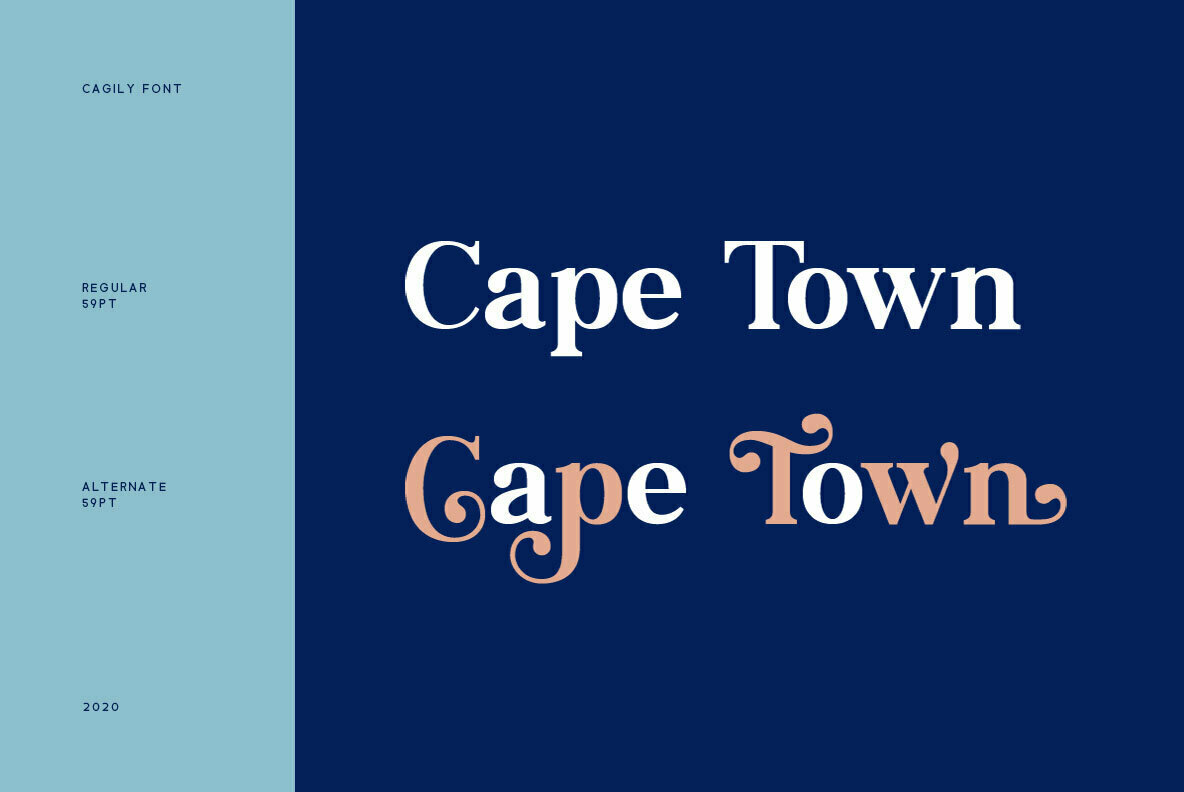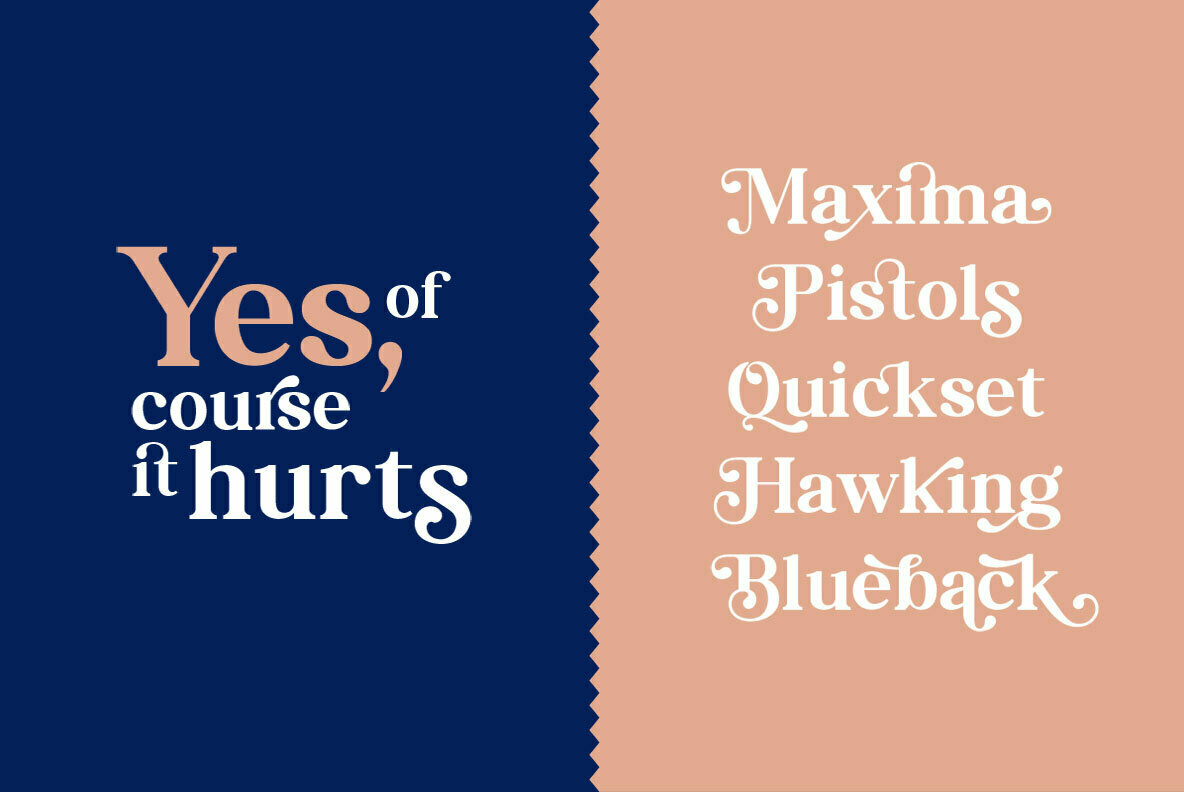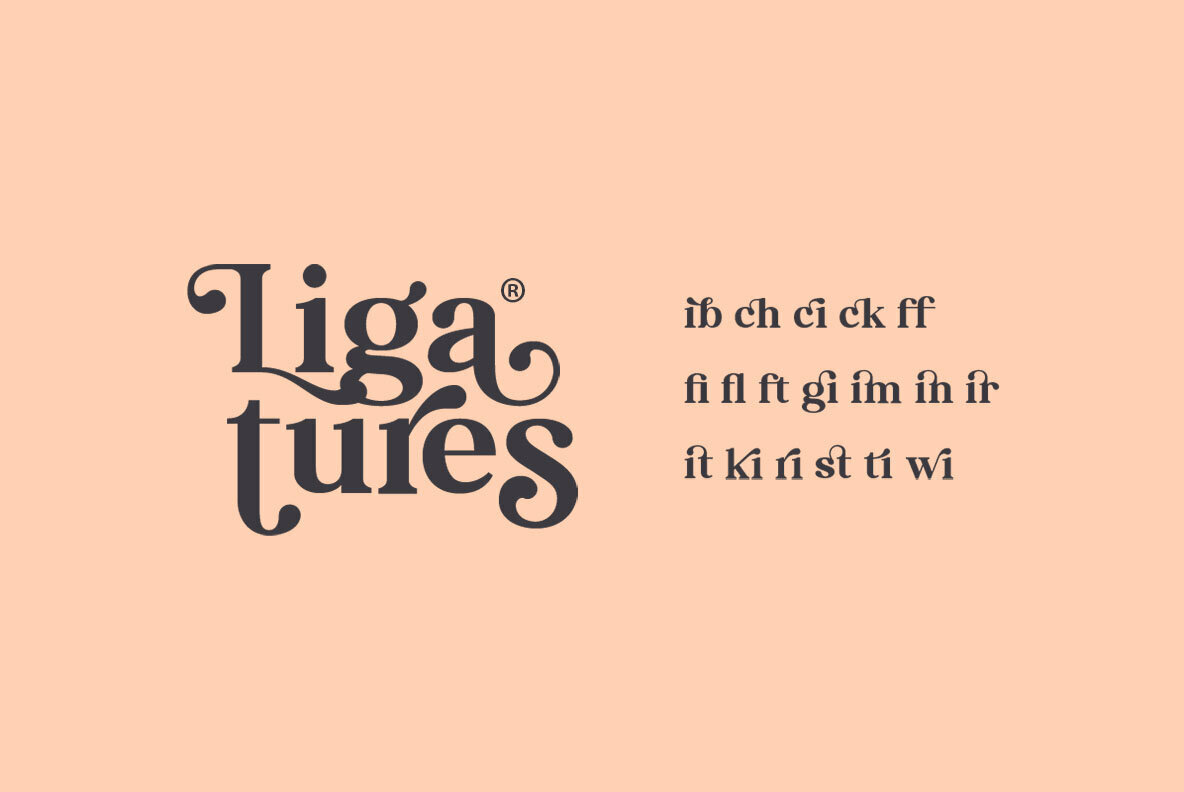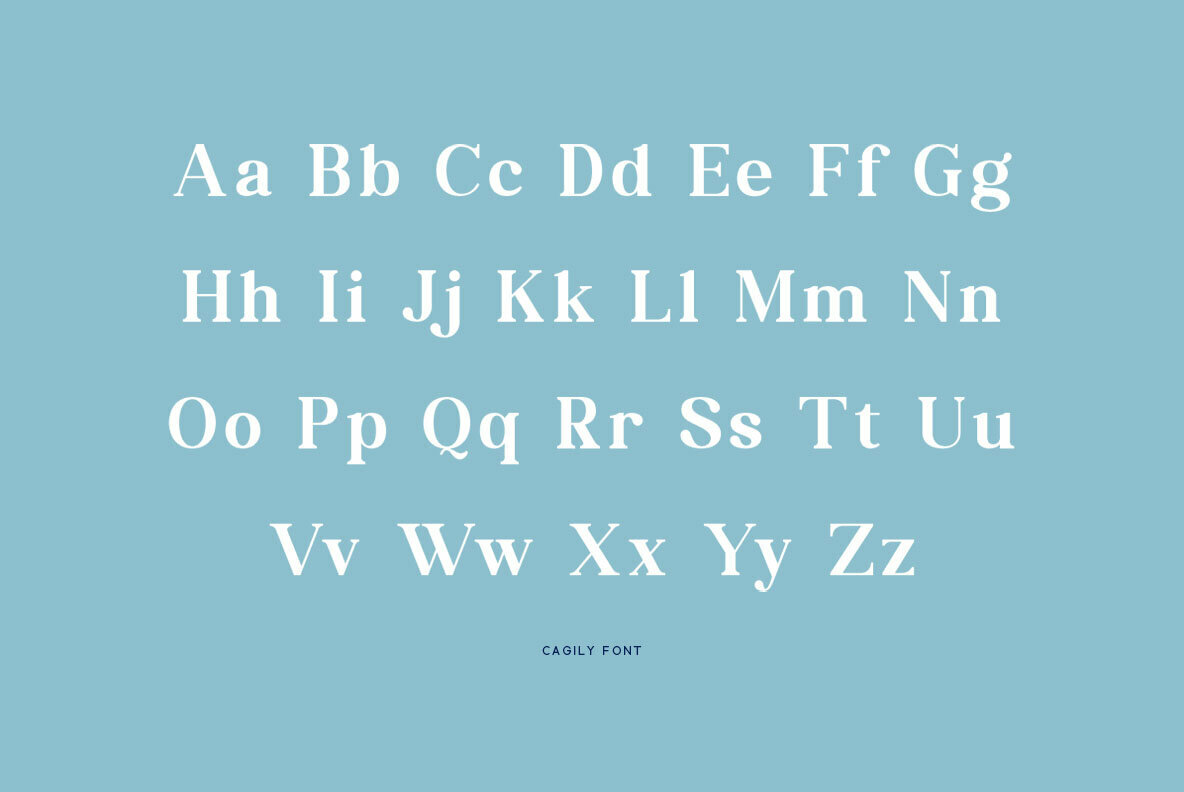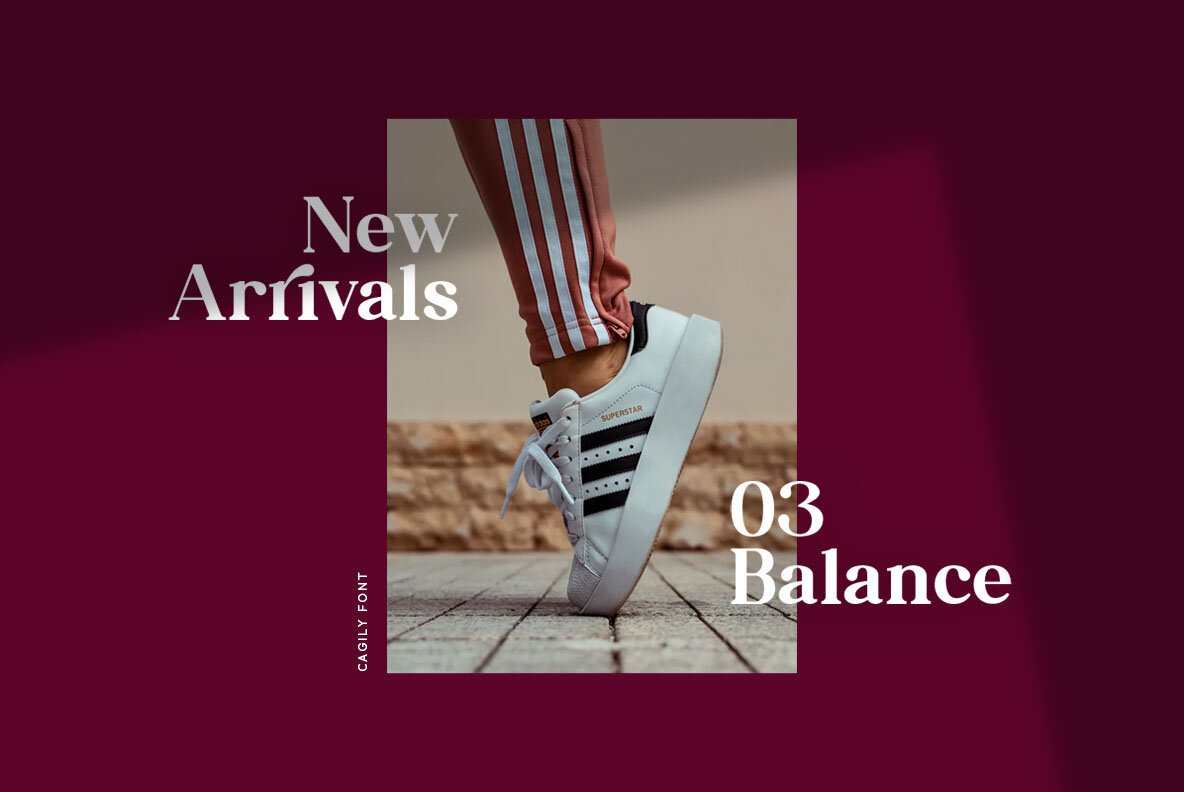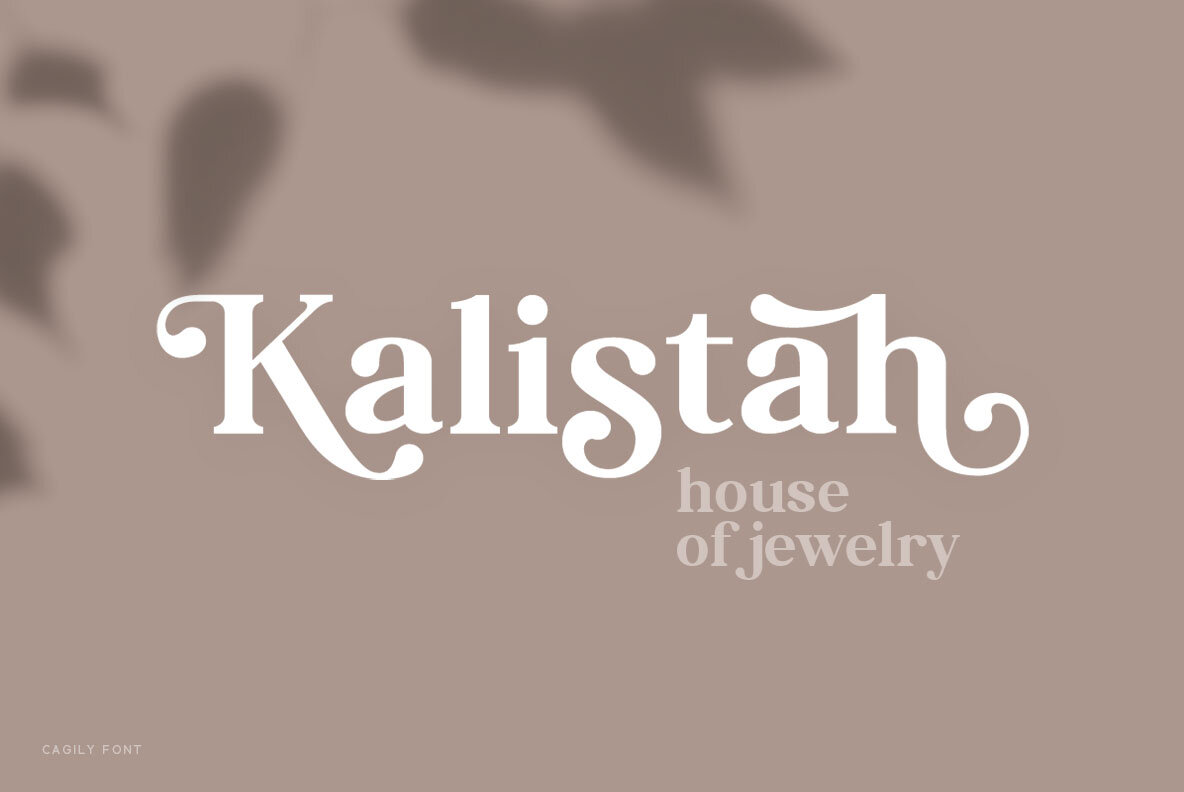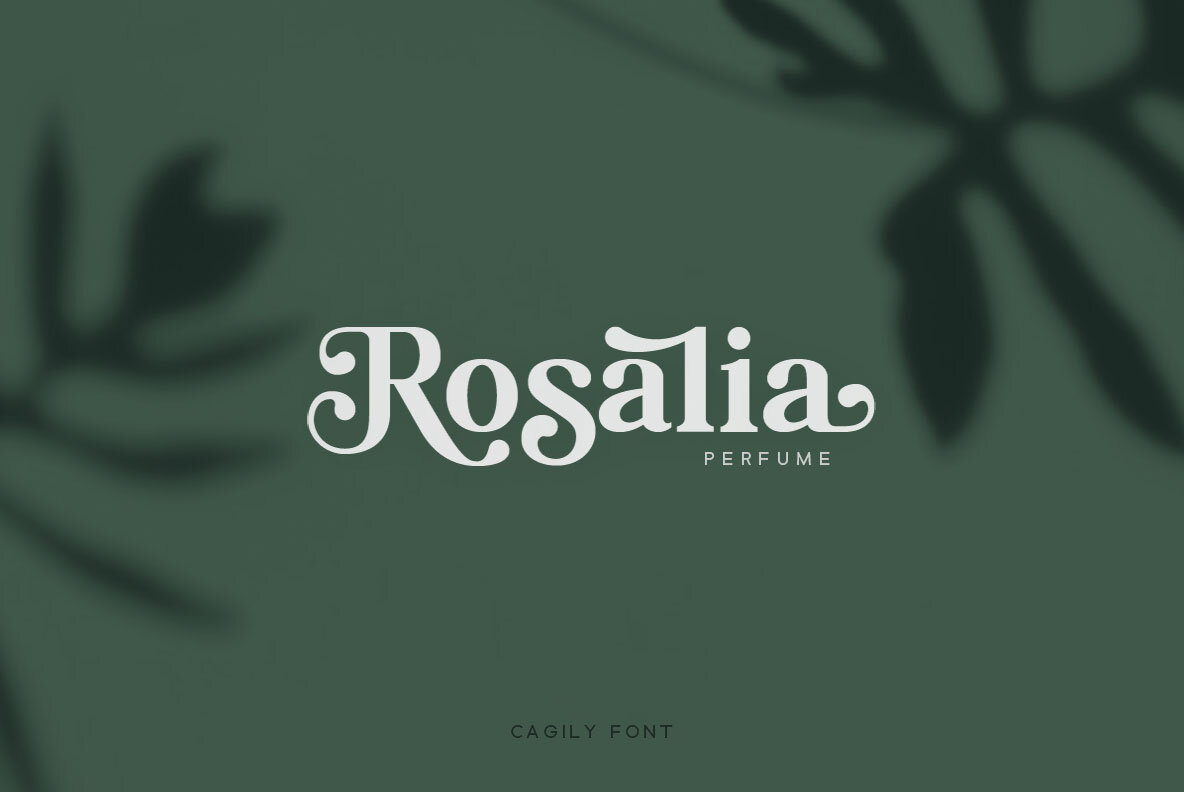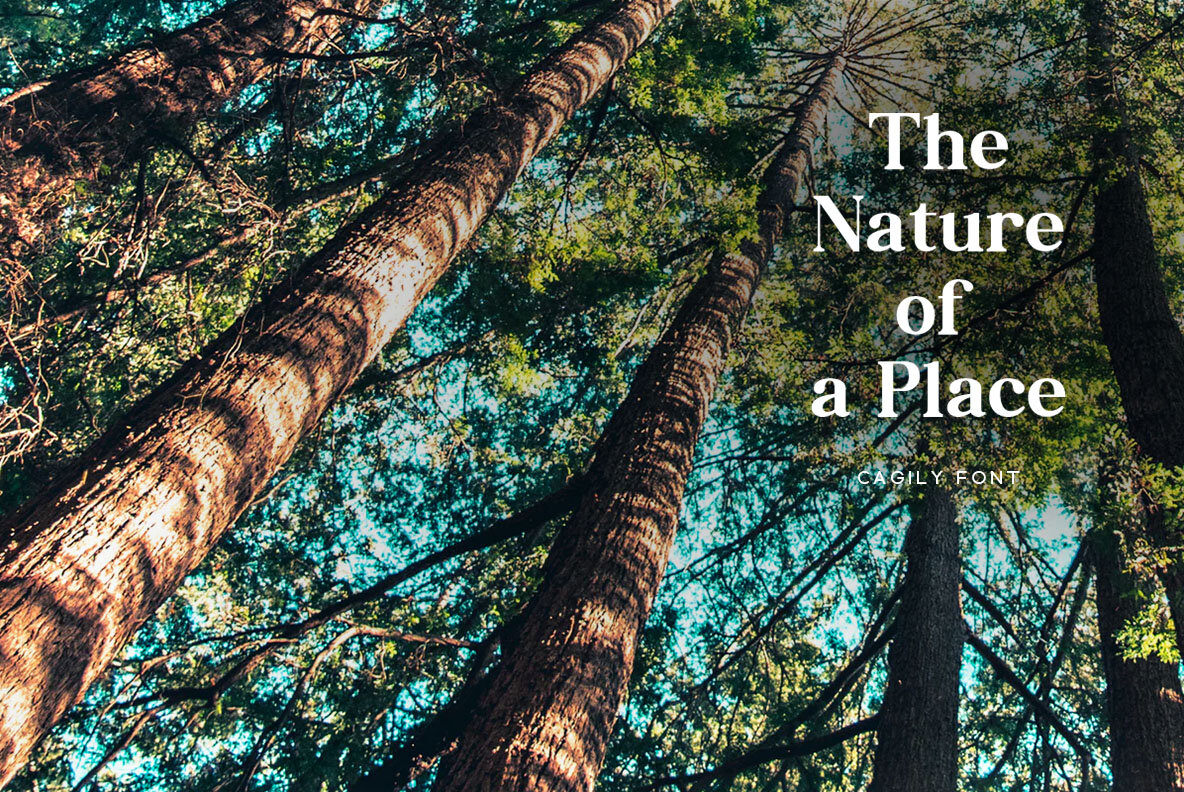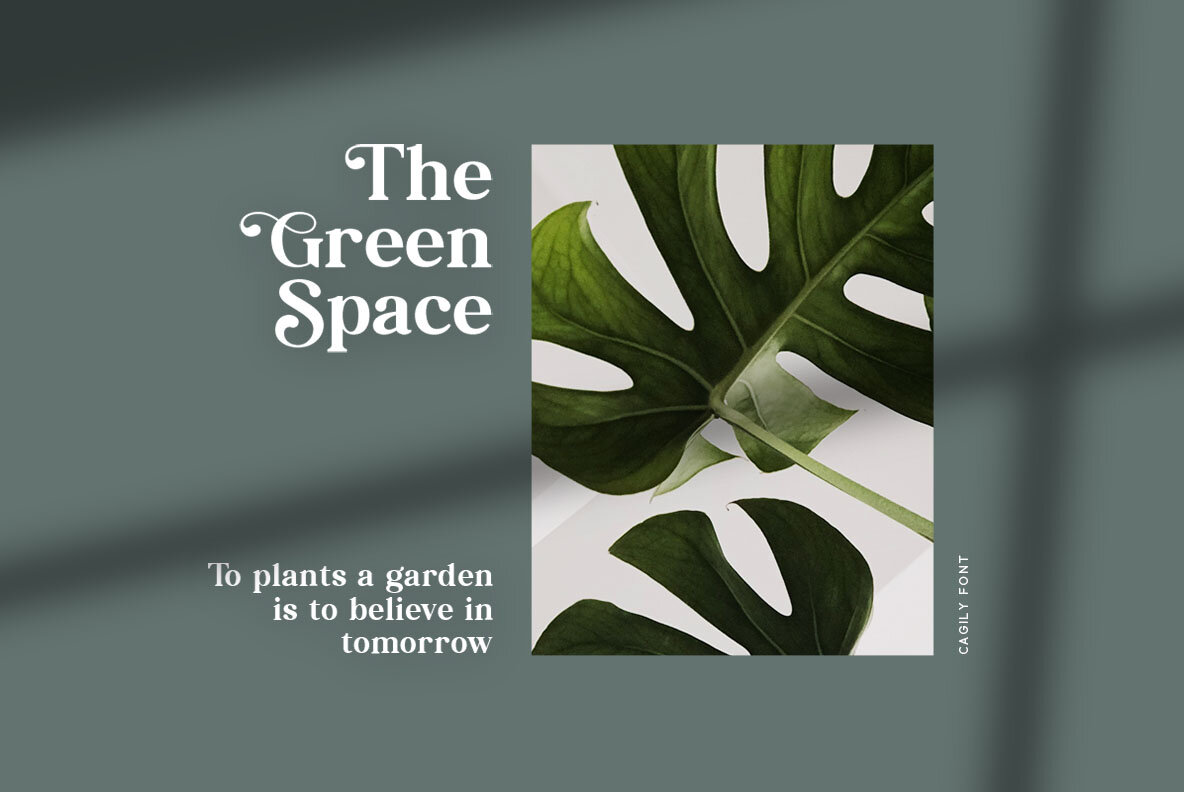
Cagily Font
Cagily
Cagily offers a modern take on the classic serif font, designed with meticulous care to enhance your typographic projects. Each letter is crafted to bring a touch of elegance to text, while the available alternate glyphs add versatility. These features are accessible through Font Book for Mac and Windows Character Map for PC users. Guides for accessing these alternates are included within the font package.Cagily: A Modern Serif for Elegant Text